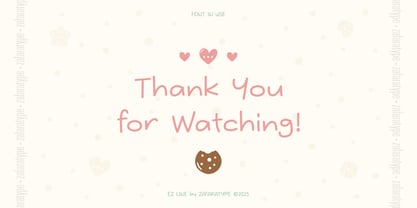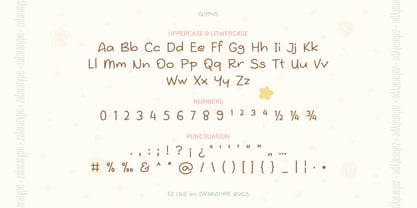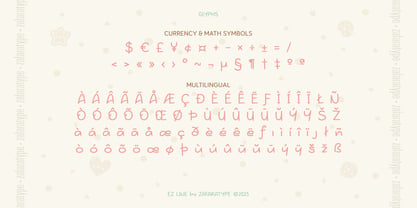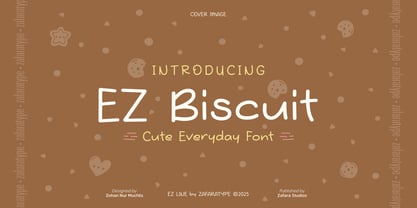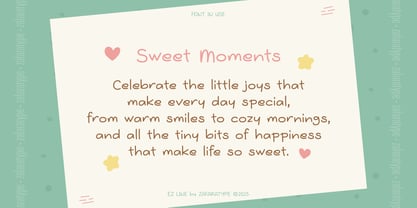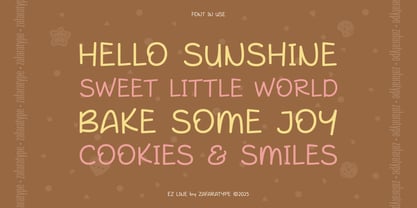
EZ Biscuit
by Zafara Studios
The EZ Biscuit Font Family was designed by Zohan Nur Muchlis and published by Zafara Studios. EZ Biscuit contains 1 styles. More about this family
EZ Biscuit is a cute and casual handwritten font that captures the warmth and charm of everyday creativity. With its rounded shapes and playful rhythm, EZ Biscuit brings a friendly, hand-drawn touch to your designs, perfect for spreading smiles and positive vibes. Ideal for quotes, logos, packaging, journals, greeting cards, and children’s projects. Whether you’re crafting something sweet or simply fun, EZ Biscuit adds a soft and cheerful personality to every word.
Designers: Zohan Nur Muchlis
Foundry: Zafara Studios